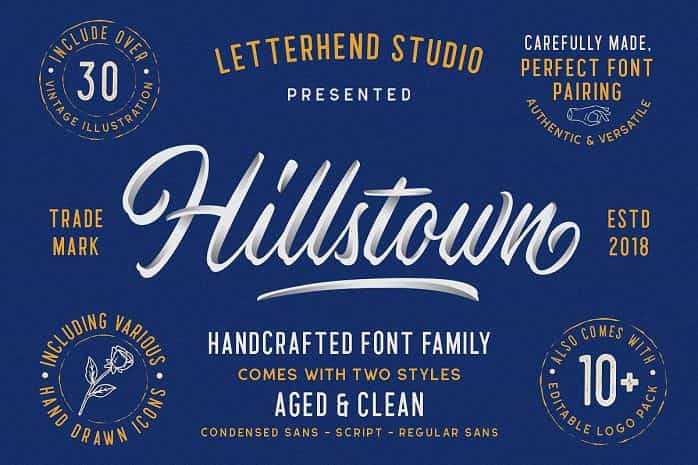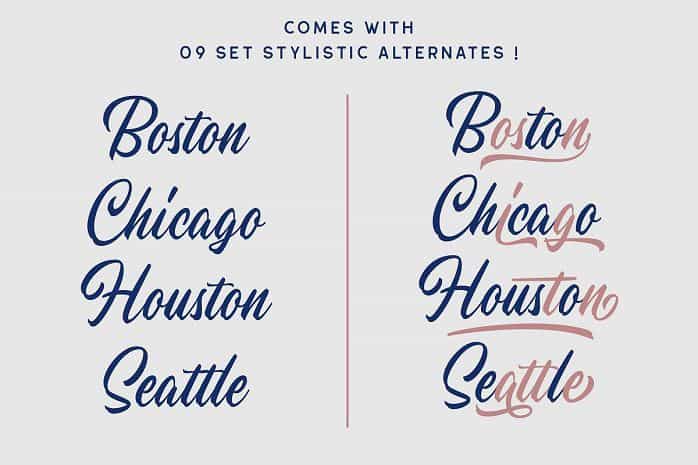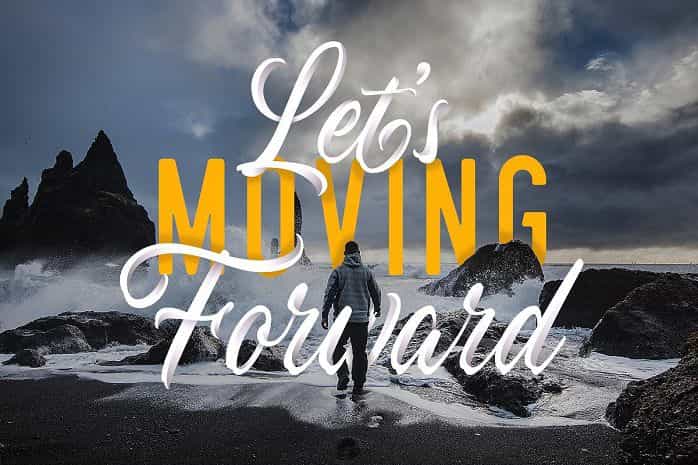
Introducing Hillstown Script DEMO. Hillstown is a font collection that has three fonts which will go well together. You will be provided with script, sans and condensed sans fonts. It has a clear and old-fashioned style for each font. The classic look is just right for you who wants a typeface that will be perfect for logotype, apparel, invitation, branding, packaging and advertising.